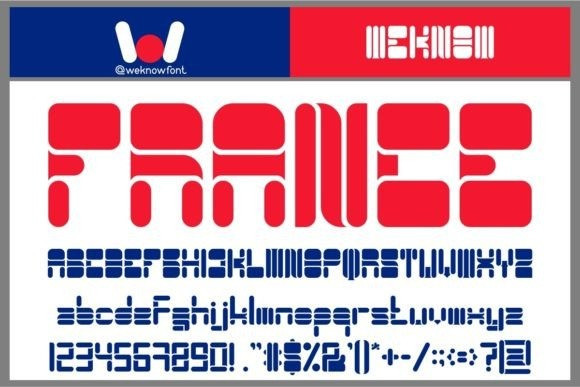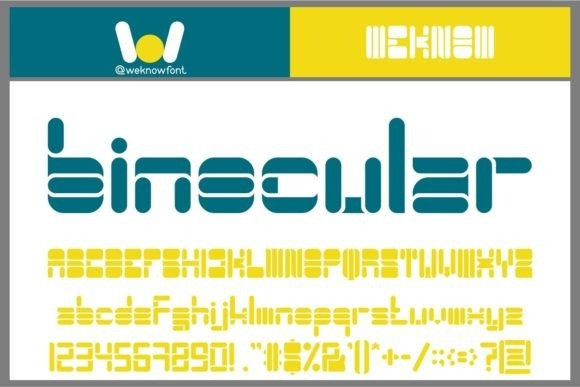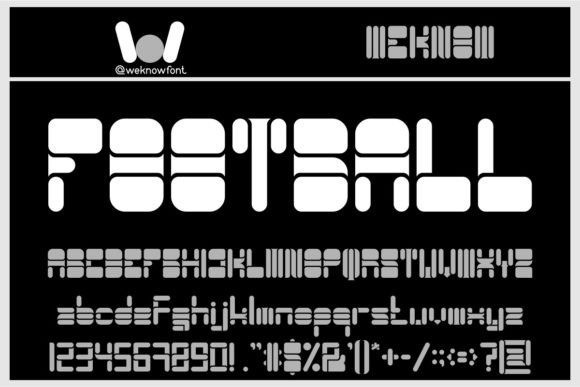
Football Display Font
Football Display Font is a techno-themed display font suitable for a logo, logotype, headline, corporate identity, brand identity, apparel industry, poster, music, movie, game, magazine, book, comic, cartoon, YouTube, Instagram, website, or any of your creative design projects.